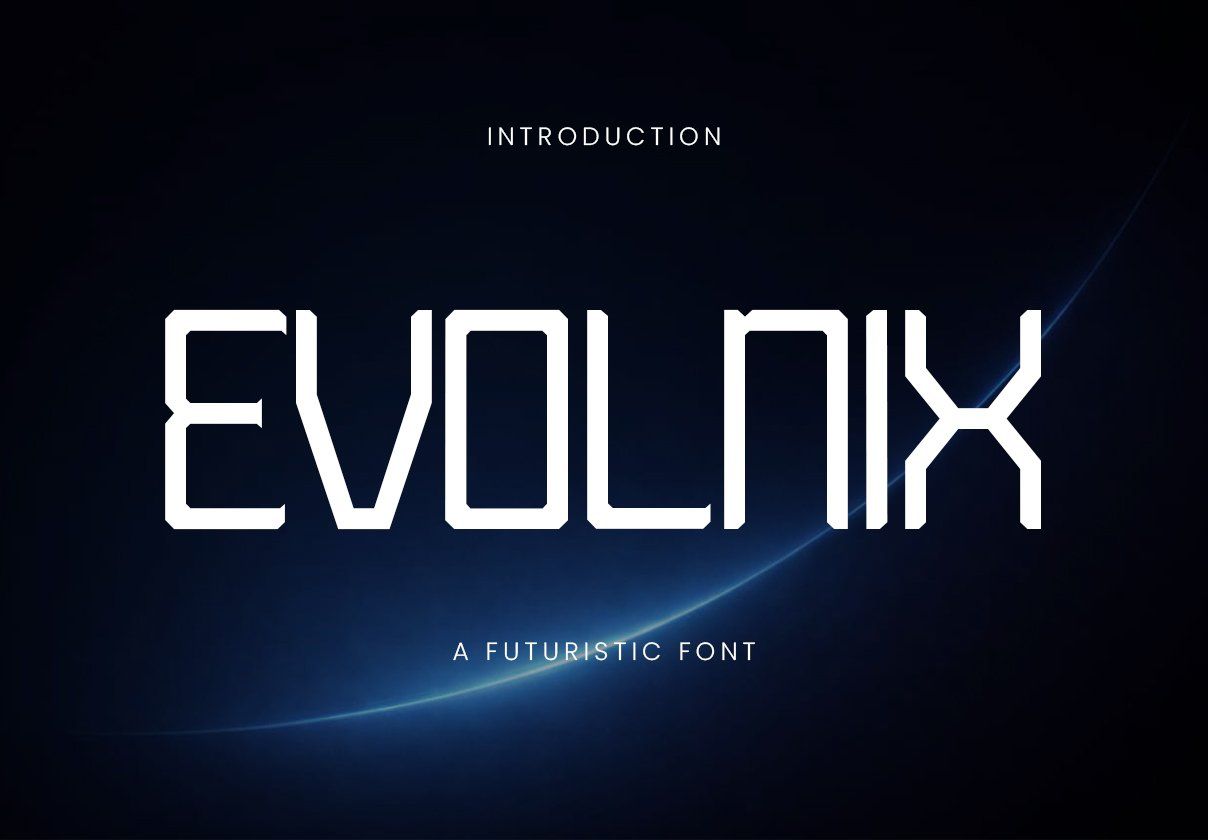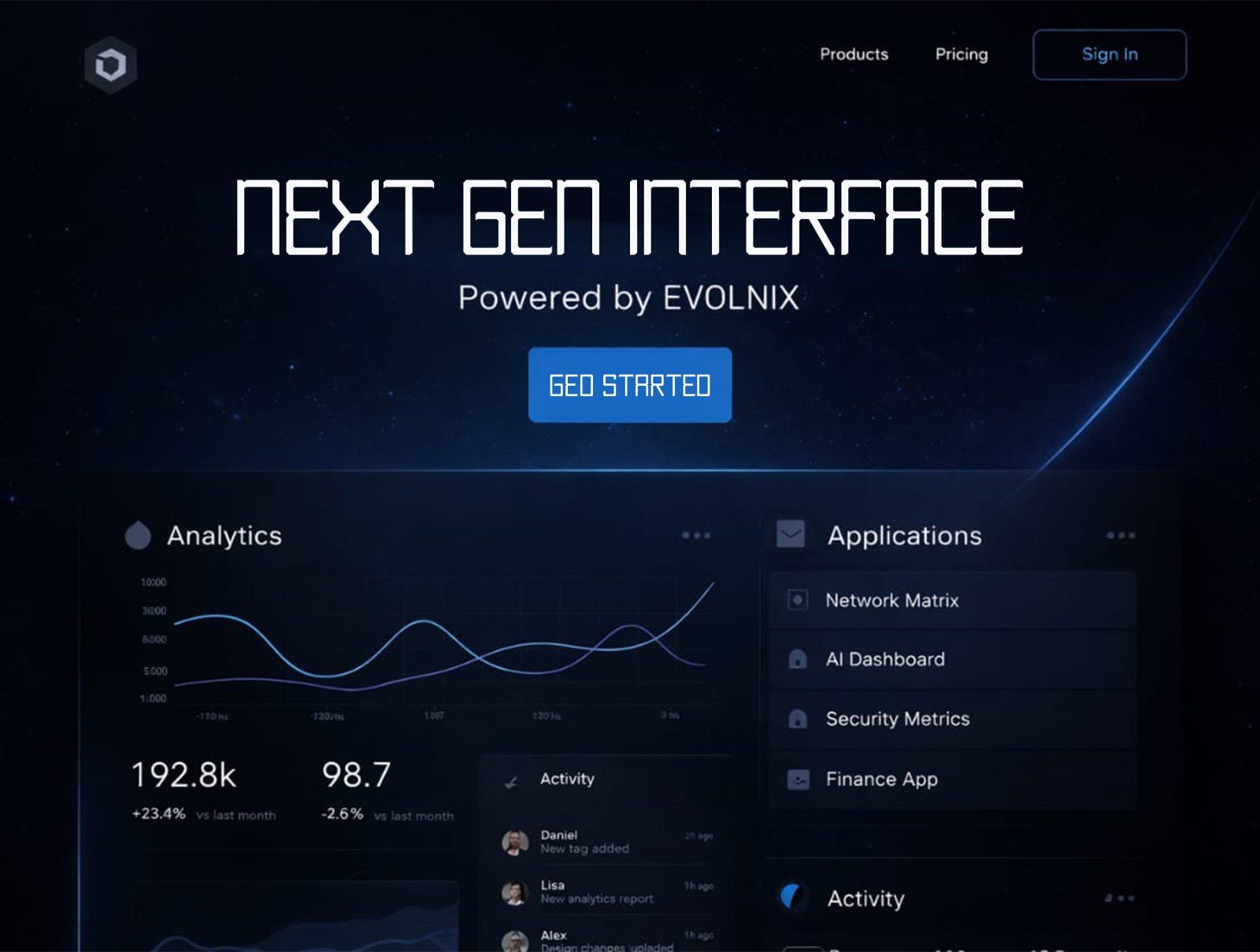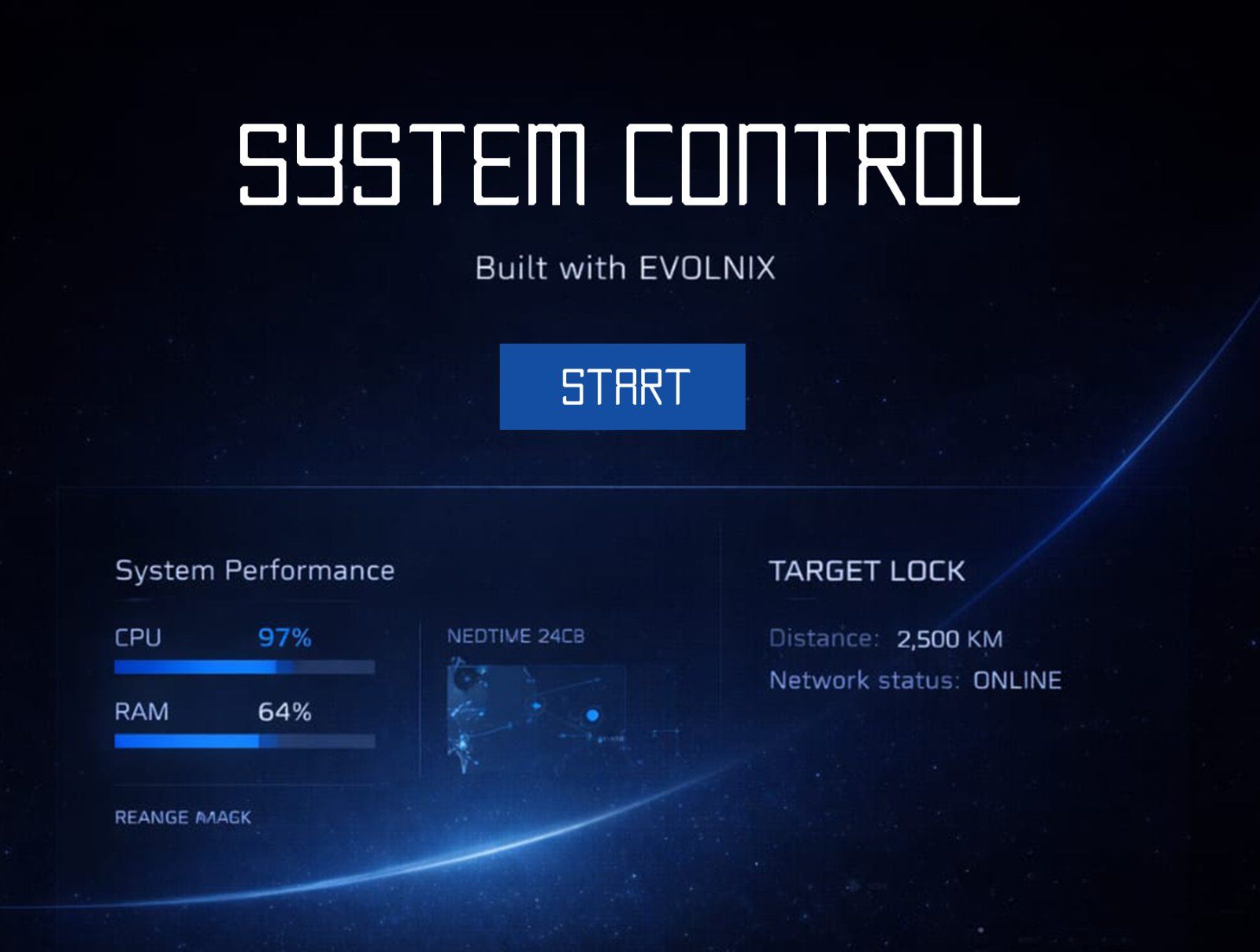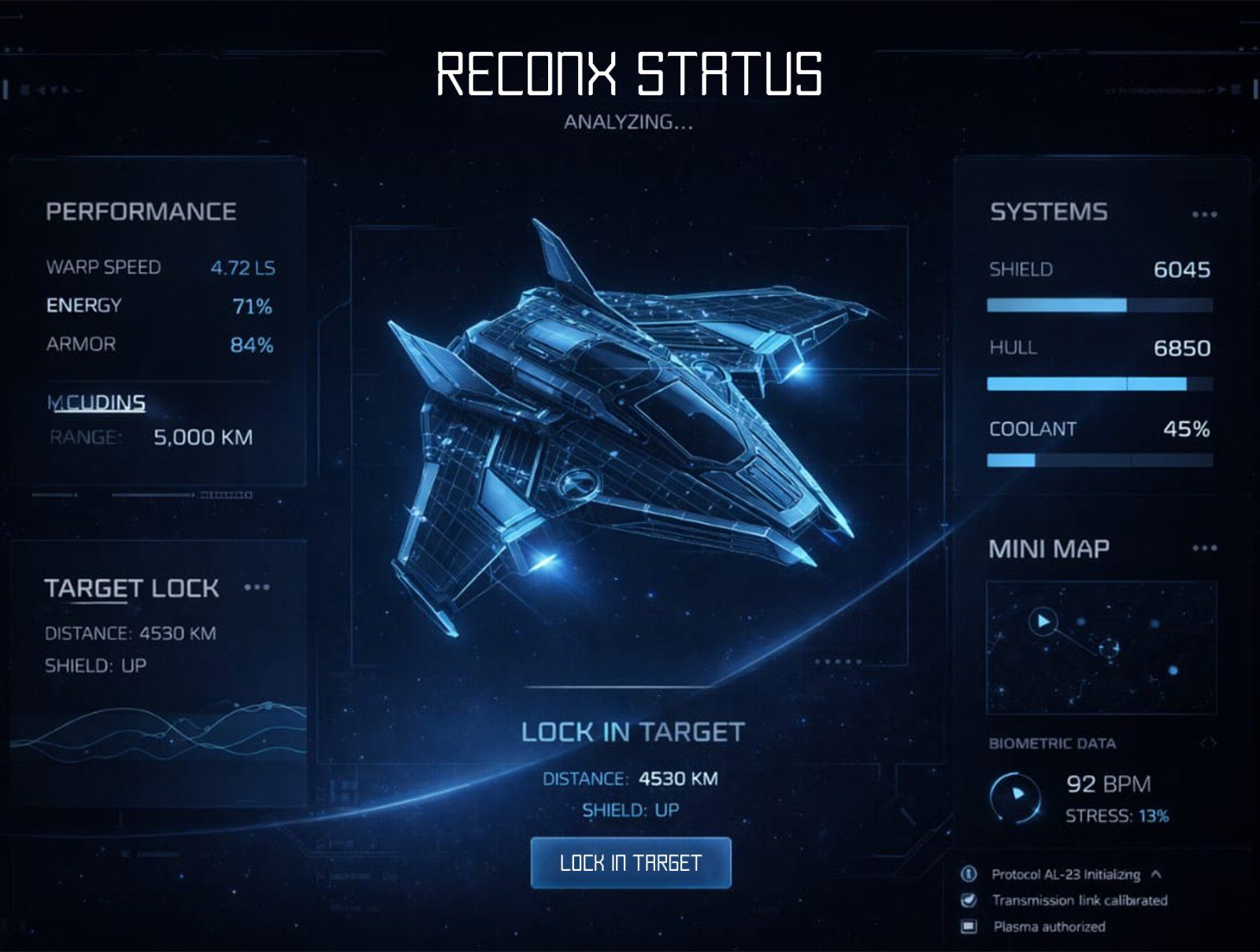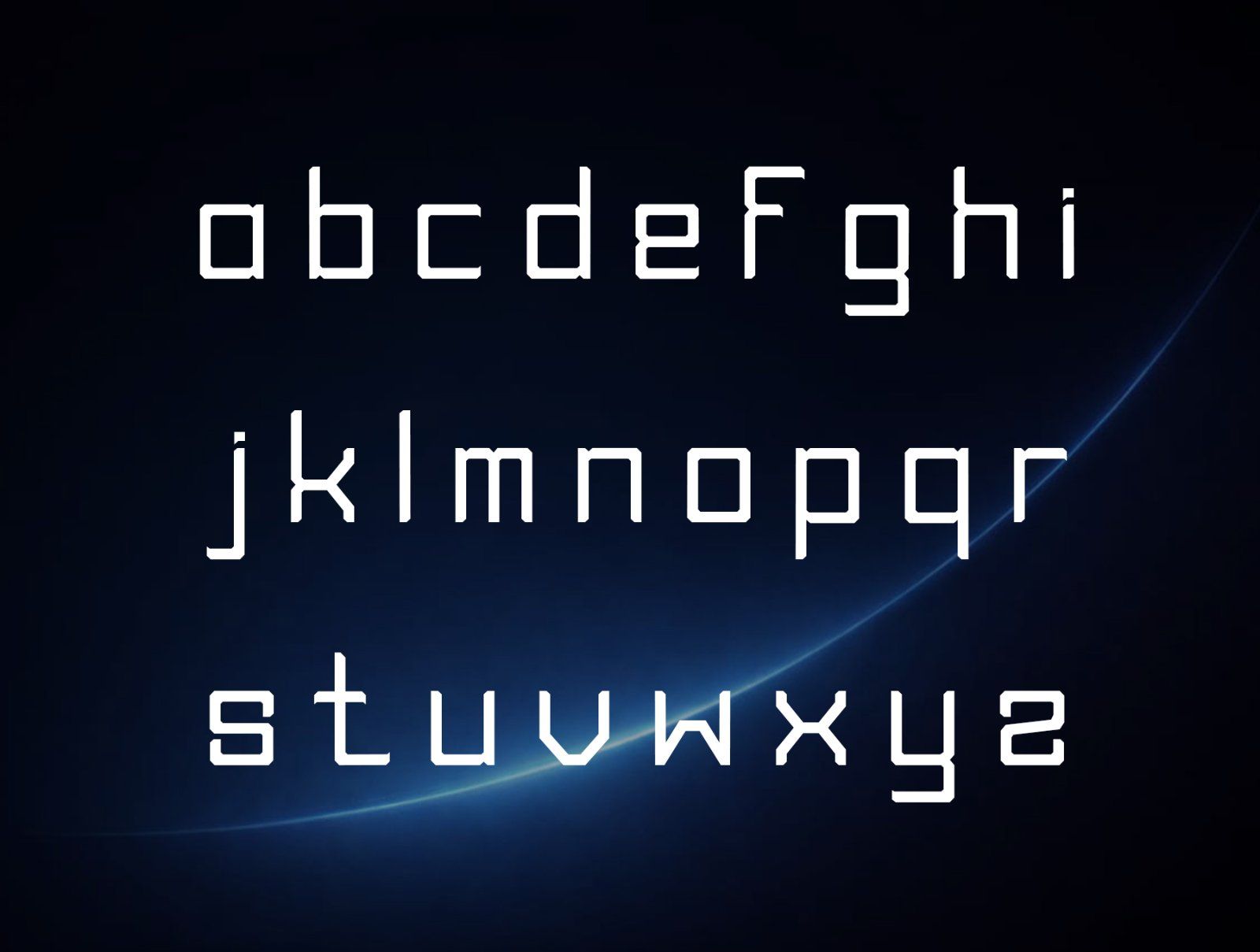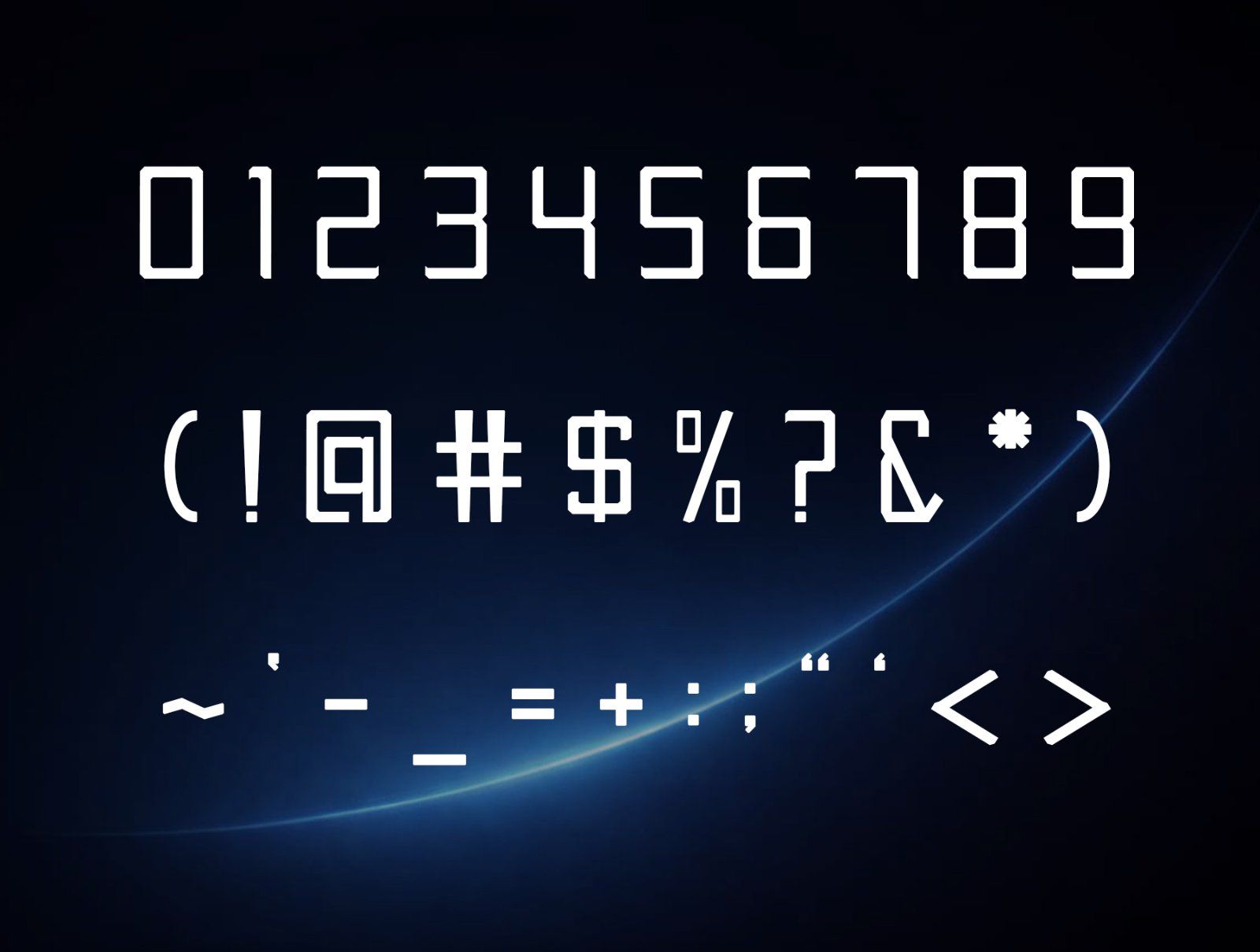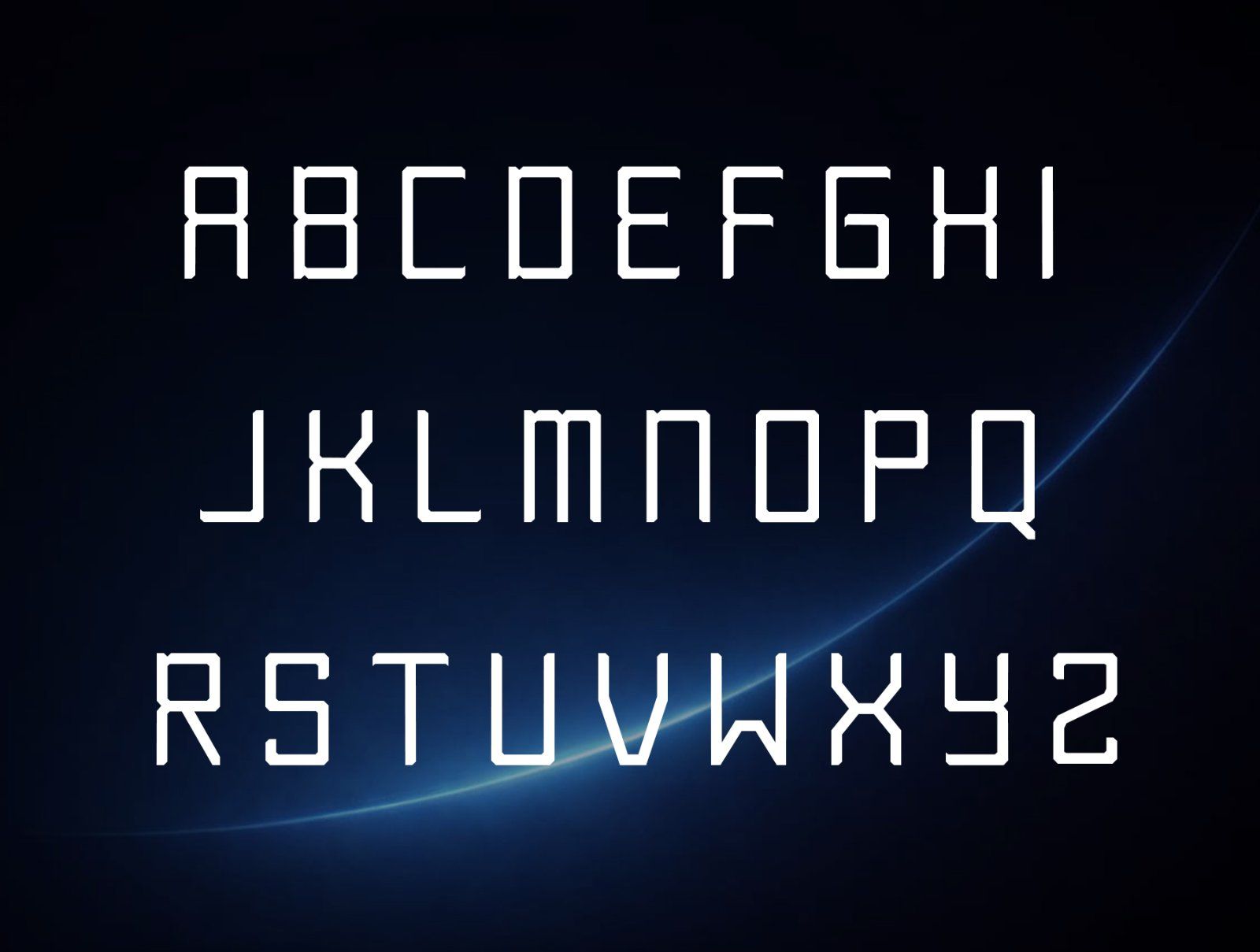
Evolnix is a futuristic display font designed to bring a modern and innovative edge to your creative projects. With its clean lines, geometric structure, and sharp aesthetics, this font is ideal for technology branding, sci-fi posters, gaming graphics, and modern digital interfaces. Whether you’re designing a logo, headline, or promotional material, Evolnix ensures your work stands out with a sleek and forward-looking style.
Evolnix comes complete with :
✨ All Caps Font
✨ Number & Symbols
✨ Multilingual